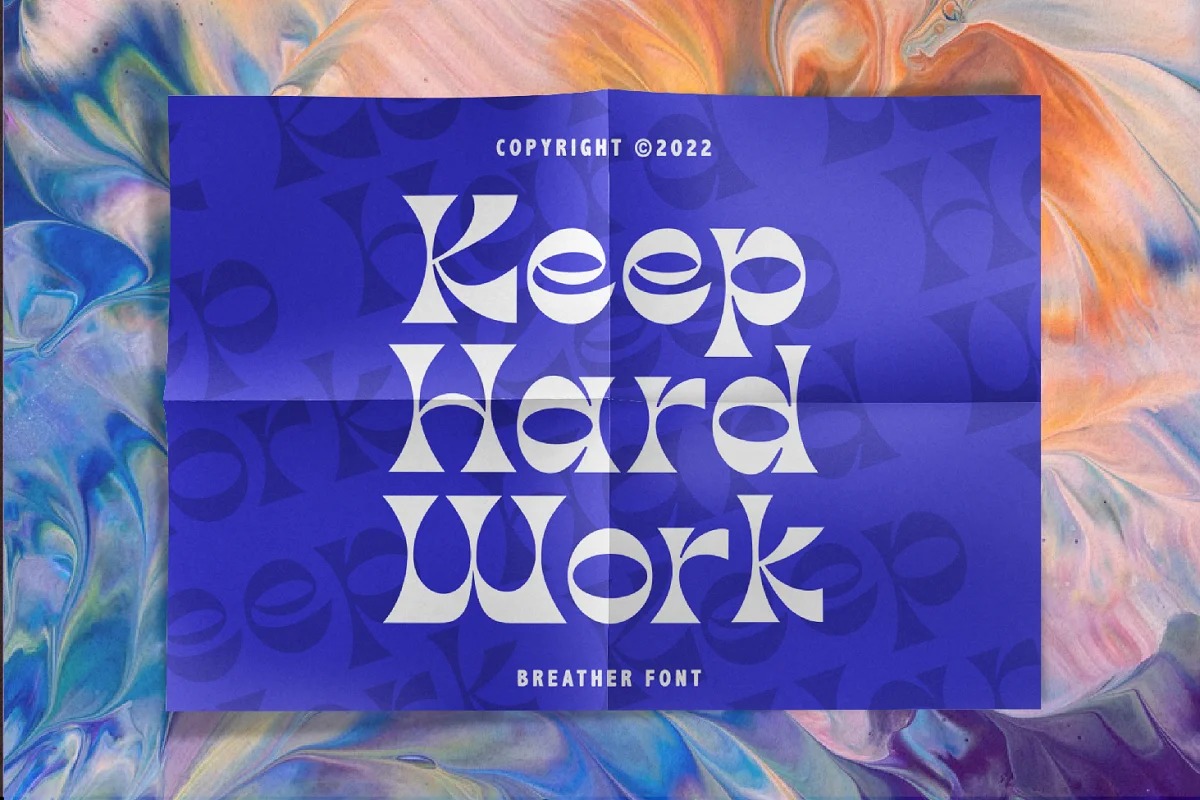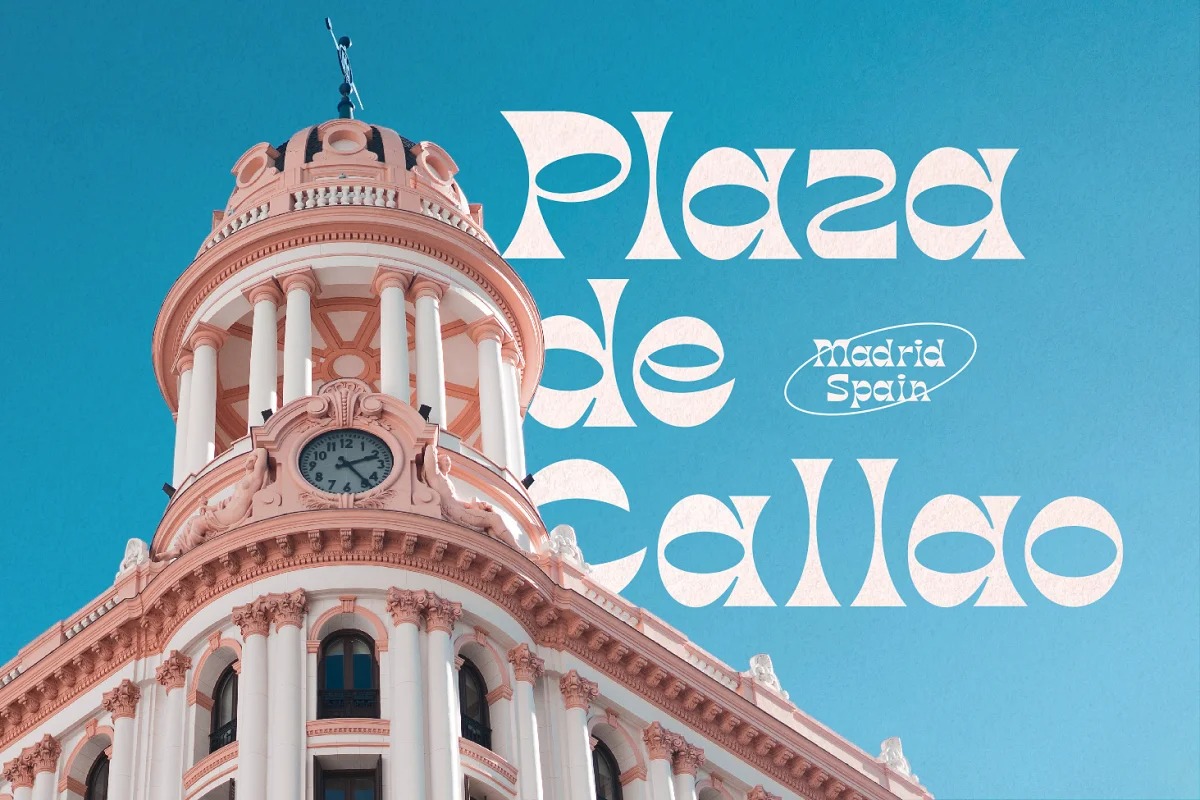
Breather Font
Breather Display Font
This is a classic and stylish serif based font crafted & designed by zeenesia. It’s retro, bold, and playful. Perfect if you need a dose of fun in your project. You can use this font for poster, logotype, branding and get stunning and unusual looks. This font also support multilingual!